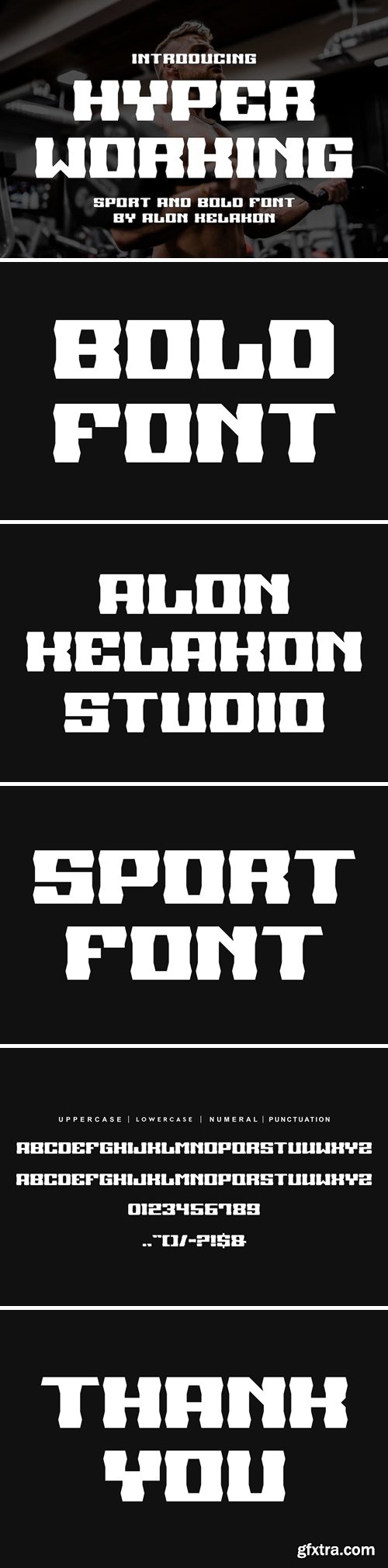
超能工作字体
Hyper Working Font is unique . Ready to use for your design like labeling, movie sceen, poster, movie title, gigs, album covers, logos, and much more.